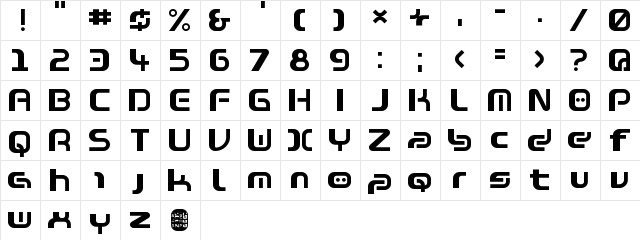
Warzone 97 Medium Left Regular
Design Context for Warzone 97 Medium Left Typeface
Warzone 97 Medium Left offers clean, dependable letterforms without strong stylistic allegiance, making it a practical choice for designers who need flexibility.
Pro Tip: Use Warzone 97 Medium Left in both headline and body roles to test its range before committing to a single application.